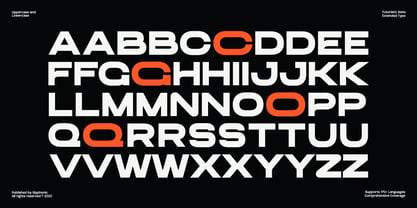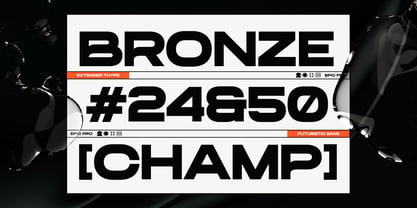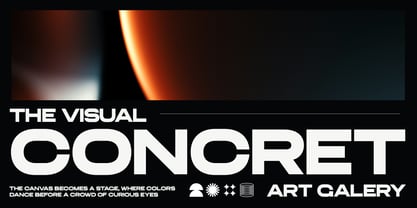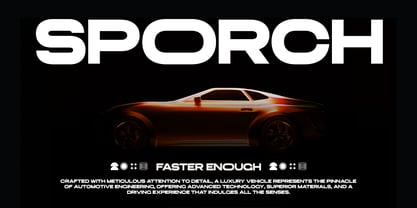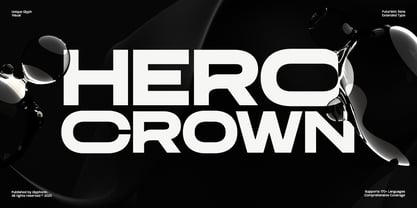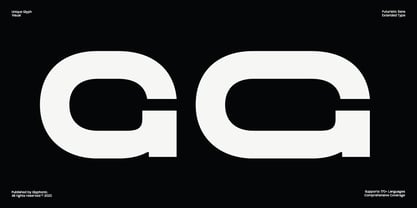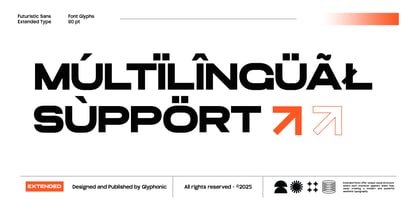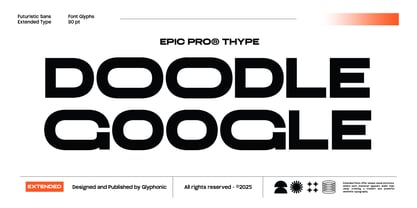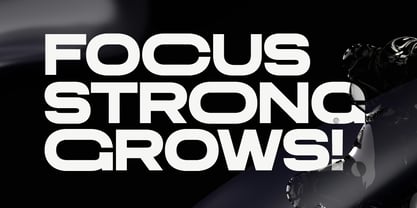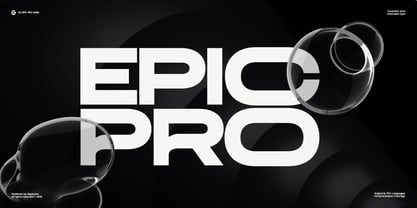
GC Epic Pro
GC Epic Pro is a futuristic extended sans-serif typeface that blends bold proportions with clean modernism. Designed to make a strong visual statement, it’s perfectly suited for impactful headlines, tech branding, sports logos, futuristic packaging, and editorial layouts. Built for designers who want presence and performance in every character, this font is crafted to leave a bold impression.
With its wide letterforms, sharp angles, and ultra-clean lines.
GC Epic Pro delivers a dynamic and forward-looking aesthetic. Whether you're working on sci-fi visuals, esports branding, or sleek digital interfaces, this typeface offers high energy, clarity, and futuristic appeal.
Features:
+ Uppercase & Lowercase
+ Ligatures & Stylistic Alternates
+ Numbers & Punctuation
+ Multilingual Support
Make your design bold, refined, and timeless with GC Epic Pro.